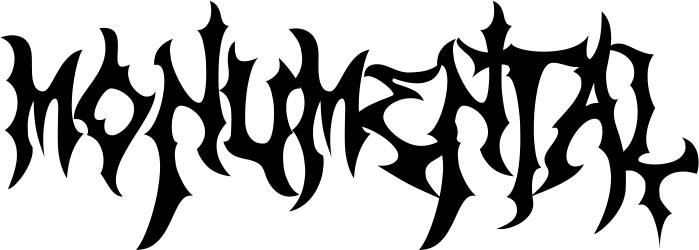
Monumental Font
Monumental is a modern gothic font that is difficult to read due to its jagged design! If you would like to give your typography a powerful feeling with a decorative gothic look, then we suggest you add this amazing font.
Its pointy letterform and strange design can help you in highlighting your typography despite lacking lower case letters, numbers, and punctuations. As it has a quirky, dangerous, intimidating mood it’s best for movies, games, posters, book covers, and more.